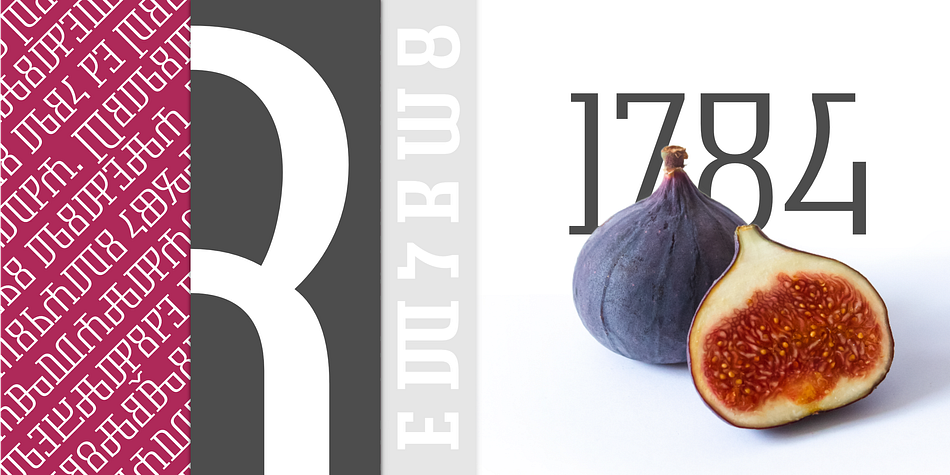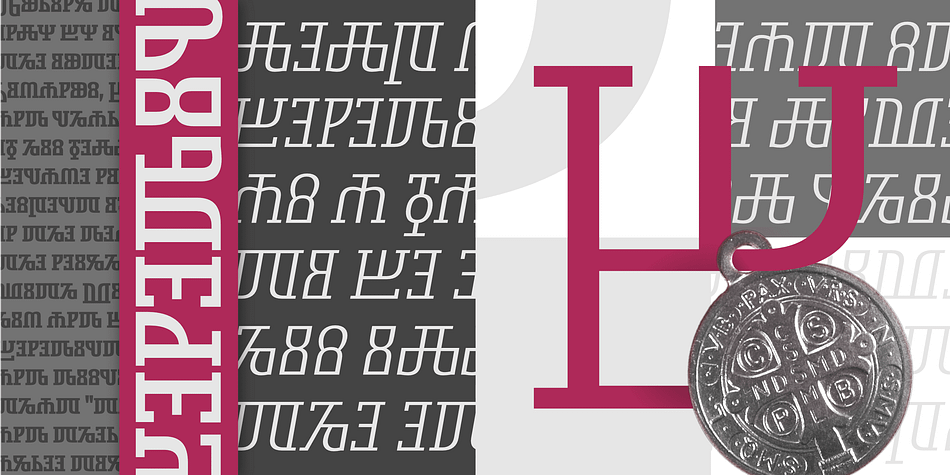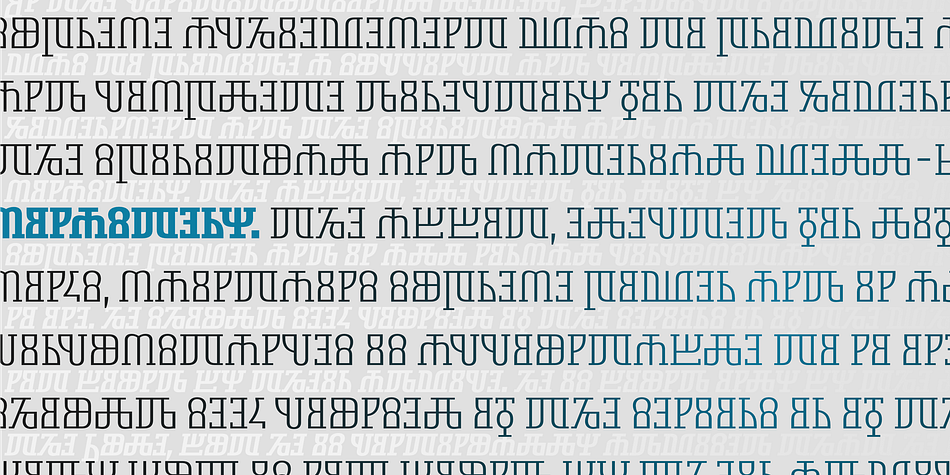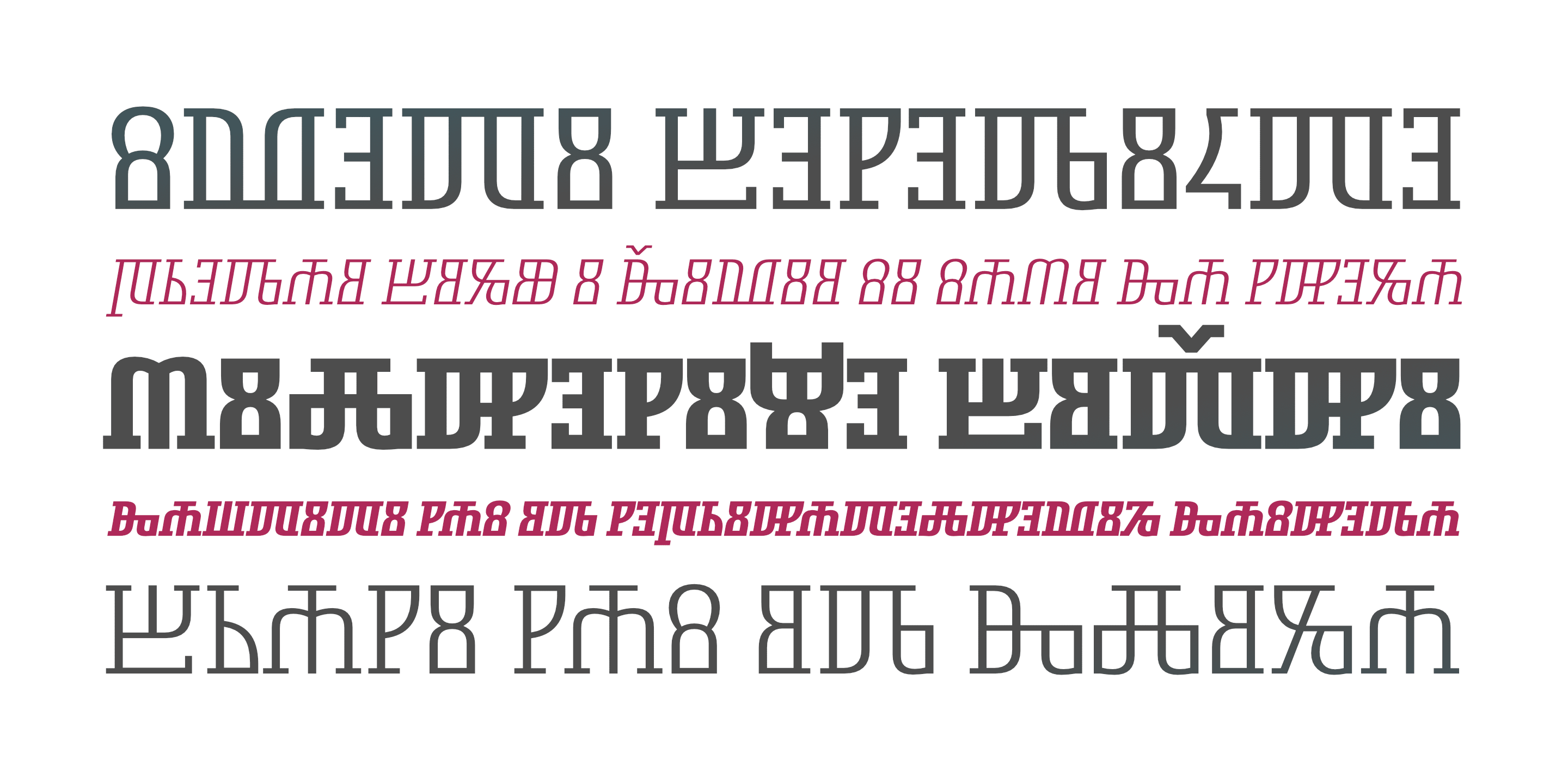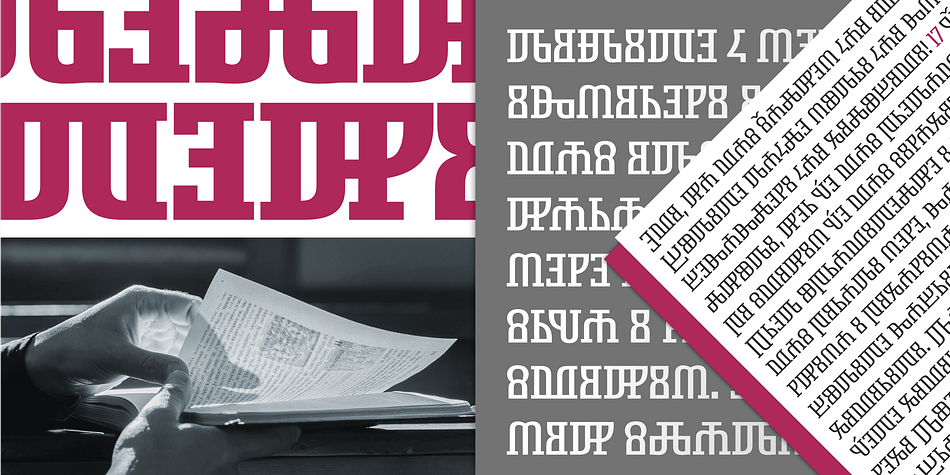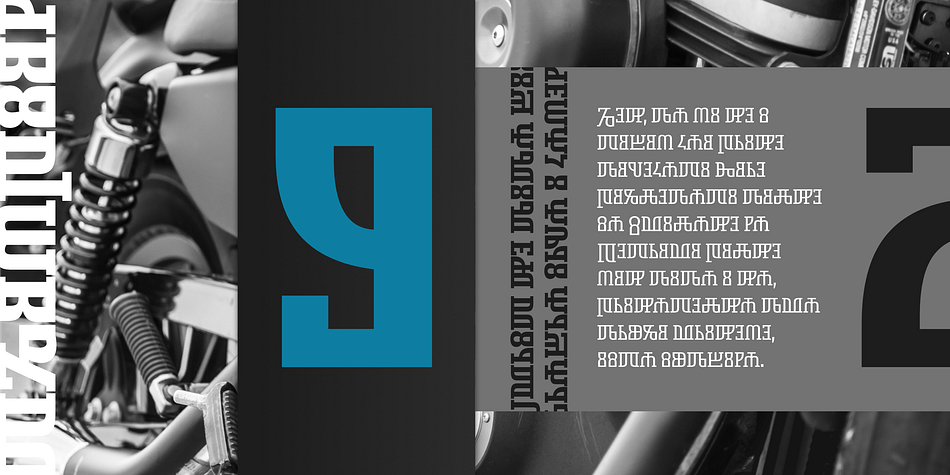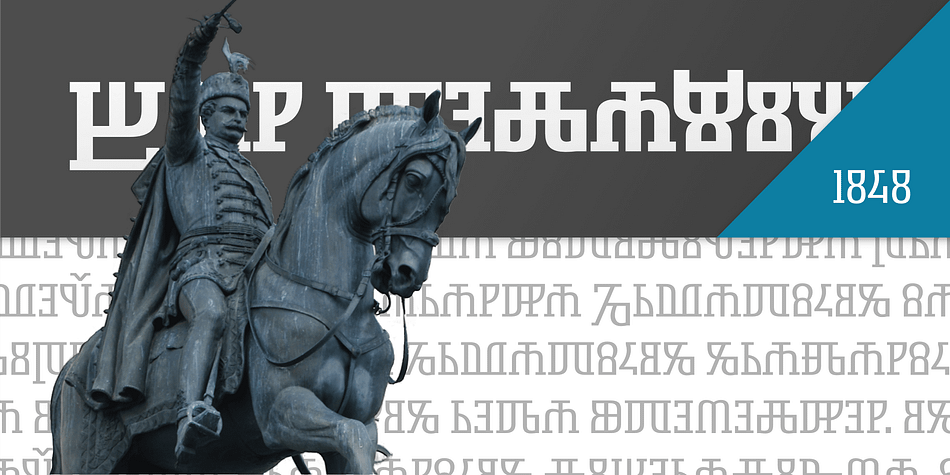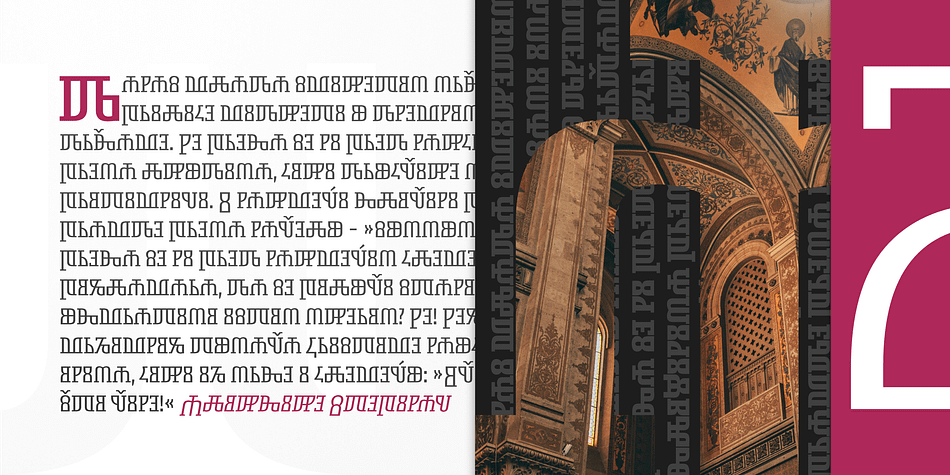
Symbolum
Designed by Marin Šantić, Symbolum is a non latin font family. This typeface has sixteen styles and was published by Type Fleet.
SYMBOLUM
Croatian heritage awakened.
Symbolum is the first ever contemporary interpretation of Glagolitic script. This rediscovered Croatian gemstone gleams again with its unique and glorious letter shapes that give this typeface an exceptional value and meaning.
The letters of this contemporary slab serif are inspired with Glagolitic script, but it is not the revival. Some letters originally don’t exist, but are invented, so the font can cover the central European character set. It is suitable for branding, game design, art and conceptual projects, but also for longer texts and more complex designs. The italics are designed at an 10° angle.
Symbolum